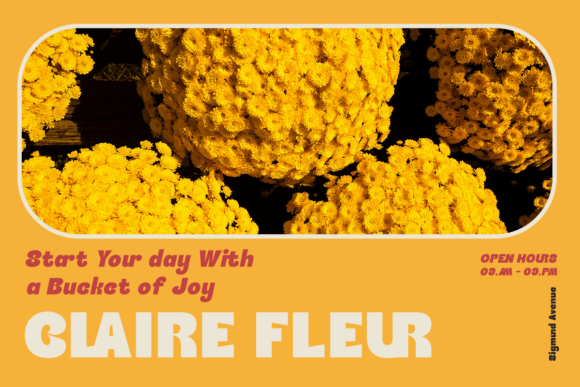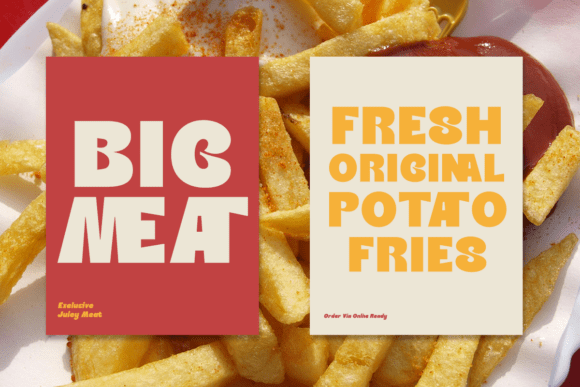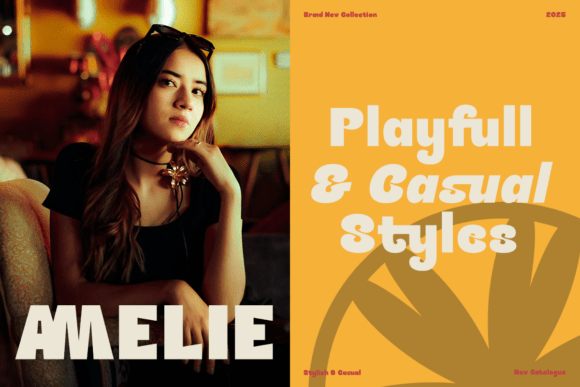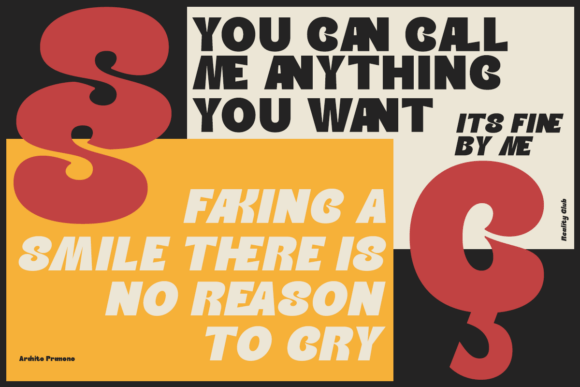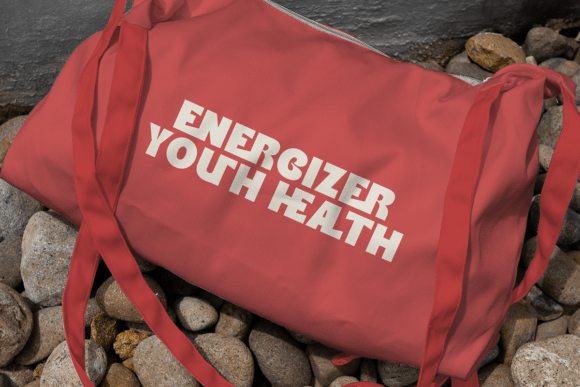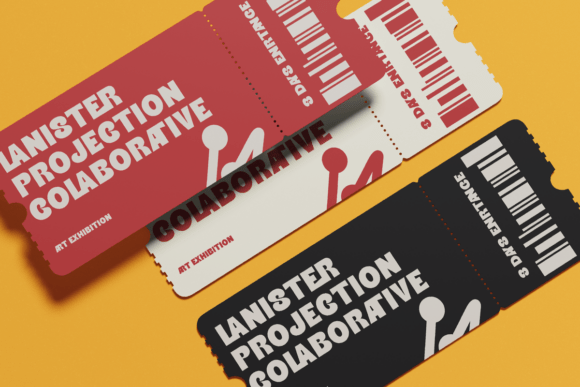
The Perfect Blend of Bold and Friendly: Introducing Belfras Font
Have you ever been stuck on a design project, struggling to find the perfect font to convey the tone and personality you envision? We’ve all been there. For designers looking to make a statement without sacrificing approachability, the Belfras Font is a game-changer.
This bold, chunky, and undeniably charismatic sans-serif typeface combines powerful presence with a friendly, rounded disposition. Designed to make a strong visual statement, the Belfras Font boasts an impressive set of over 100 ligatures, allowing for sophisticated typographic customization and fluid text flow. Whether you’re working on a corporate identity, editorial design, or product packaging, the Belfras Font is a versatile display typeface that’s perfect for logos, posters, headlines, and social media visuals.
Belfras Font Key Features
- Font Family: Belfras is a sans-serif font family.
- Unique Characteristics: Belfras features a clean and modern design with subtle rounded edges, making it suitable for a wide range of applications, from digital products to print materials.
Belfras Font Review
Overall, I found the Belfras font to be an interesting addition to the font library, offering a unique aesthetic that can be used in a variety of projects.
- ✨ The font’s modern and minimalist design makes it perfect for digital interfaces, such as websites and apps.
- ✨ The clean lines and simple shapes make it easy to read, even at small font sizes.
- ✨ The font’s versatility allows it to be used in a range of contexts, from body text to headlines.
- ⚠️ The font’s lack of italics and bold weights may limit its use in certain situations.
- ⚠️ The font’s design may not be suitable for print materials, such as books or magazines, due to its digital origins.
- ⚠️ The font may not be as readable in certain languages or scripts, due to its simplified design.
While the Belfras font has its limitations, it is a solid choice for digital projects that require a modern and minimalist aesthetic. Its clean design and versatility make it a great addition to any font library, but it may not be the best choice for every project.
Tips for Getting the Most Out of Belfras Font
To get the most out of the Belfras font, try the following:
- Use it in bold or italic styles to add emphasis to your text.
- Pair it with a sans-serif font for a clean and modern look.
- Experiment with different font sizes and line heights to create visual interest.
The Belfras font is well-suited for:
- Logo design and branding.
- Business cards and stationery.
- Wedding invitations and event materials.
- Any project where a elegant and sophisticated look is desired.
Alternatives to Belfras Font for Designers
Great Vibes Font is a beautiful, elegant script font perfect for creating eye-catching headings and titles. It’s ideal for use in wedding invitations, luxury branding, and high-end packaging.
Compared to Belfras Font, Great Vibes Font has a more refined and sophisticated look, making it suitable for more upscale designs. It’s also more versatile and can be used in a wider range of applications.
Alex Brush Font is a handwritten font that exudes a sense of warmth and personality. It’s perfect for use in creative projects, such as blog posts, social media graphics, and advertising campaigns.
Compared to Belfras Font, Alex Brush Font has a more casual and approachable feel, making it ideal for designs that require a friendly and conversational tone. It’s also more suitable for digital applications, such as social media and websites.
Carolyna Pro Font is a modern script font that’s perfect for creating elegant and sophisticated designs. It’s ideal for use in luxury branding, high-end packaging, and upscale marketing materials.
Compared to Belfras Font, Carolyna Pro Font has a more refined and polished look, making it suitable for more formal and professional designs. It’s also more versatile and can be used in a wide range of applications, from print to digital.
The recommended font size for optimal readability with Belfras Font is between 12 and 14 points. However, this may vary depending on the specific use case and the design software being used. It’s always a good idea to test different font sizes and styles to find the most readable and visually appealing solution.
Does Belfras Font support Unicode characters?
Yes, the Belfras Font supports a wide range of Unicode characters, including Latin, Cyrillic, and Greek scripts. This makes it a versatile font for use in multilingual designs and applications.